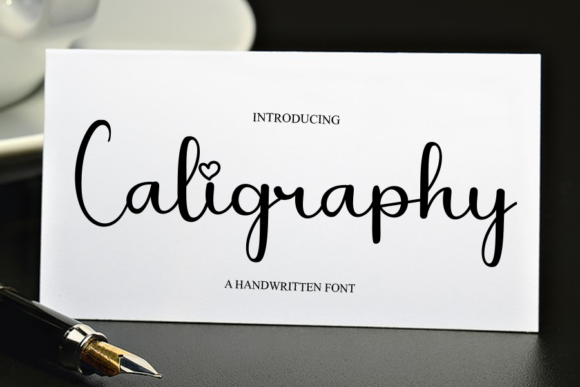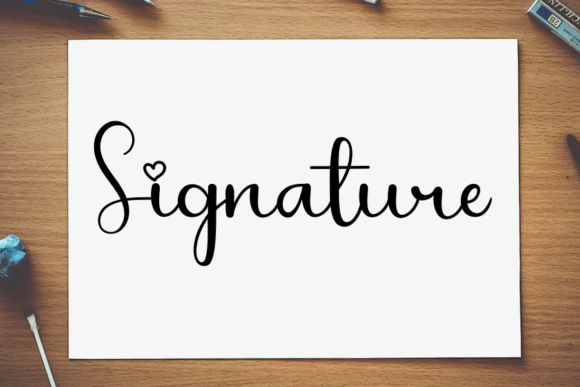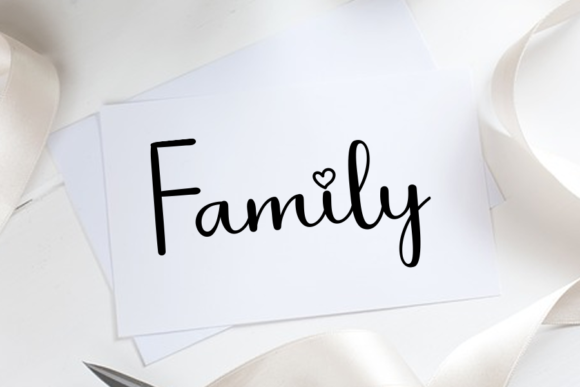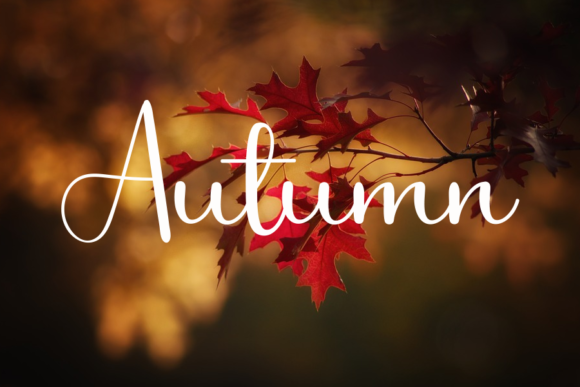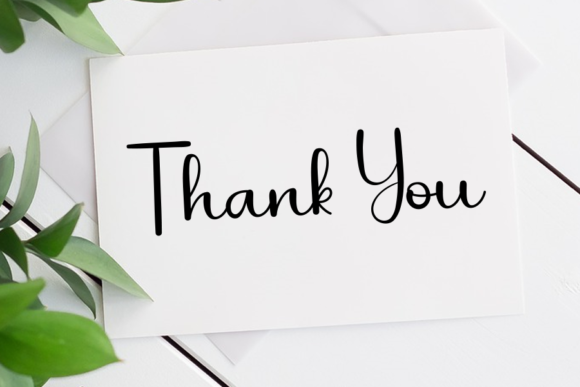
Unleash Your Creativity with the Charming Caligraphy Font
Have you ever stared at a blank page, feeling like your ideas aren’t quite translating to paper? You know, that moment when your creativity is stuck and all you need is a little spark to get those juices flowing? That’s exactly when you can count on the right font to help bring your vision to life. For me, that spark often comes from a beautiful script font that adds a touch of whimsy and personality to my designs.
Enter the Caligraphy Font, a lovely script font that features charming, playful characters that seem to dance along the baseline. Whether you’re a designer, artist, or writer, this font is sure to add a touch of elegance and sophistication to your work. Its versatility makes it a valuable tool for designers looking to create unique and eye-catching designs.
By incorporating the Caligraphy Font into your most creative ideas, you’ll notice how it makes them stand out in a crowd. Whether you’re creating a logo, brochure, or social media post, this font is sure to bring a smile to your audience’s faces.
Caligraphy Font Key Features
- Unique Characteristics: Features intricate and elegant letterforms, with subtle flourishes and connections between letters, giving it a sophisticated and refined look.
Designer Review: Caligraphy Font
Overall, I’d say Caligraphy Font is a decent addition to any designer’s toolkit. Here’s what I like about it: ✨
- Unique aesthetic: Caligraphy Font has a distinct, elegant feel to it, making it perfect for designs that need a touch of sophistication.
- High-resolution support: The font looks great at various resolutions, ensuring that your designs will scale well across different devices.
- Good legibility: The font is easy to read, even at smaller sizes, making it suitable for body text or headlines.
- Limited character set: Caligraphy Font has a relatively small character set, which may cause issues if you need to use special characters or languages.
- Lack of versatility: While the font looks great on its own, it may not pair well with other fonts, limiting its use in certain design contexts.
Overall, I’d give Caligraphy Font 3.5 out of 5 stars. It’s a solid choice for designs that require a touch of elegance, but it may not be the best fit for every project. With some careful consideration and planning, however, it can be a great addition to your design arsenal.
Practical Application Guide for Calligraphy Font
Tips for Getting the Most Out of Calligraphy Font
Experiment with different font sizes, colors, and spacings to create a unique and eye-catching design. Use calligraphy font for headings, titles, or quotes to add a touch of elegance and sophistication. Combine calligraphy font with other fonts to create a visually appealing contrast.
Calligraphy font is commonly used for wedding invitations, baby announcements, and other special occasion stationery. It’s also used for creating custom logos, branding materials, and packaging designs. The elegant and sophisticated look of calligraphy font makes it perfect for formal events, luxury brands, and high-end products.